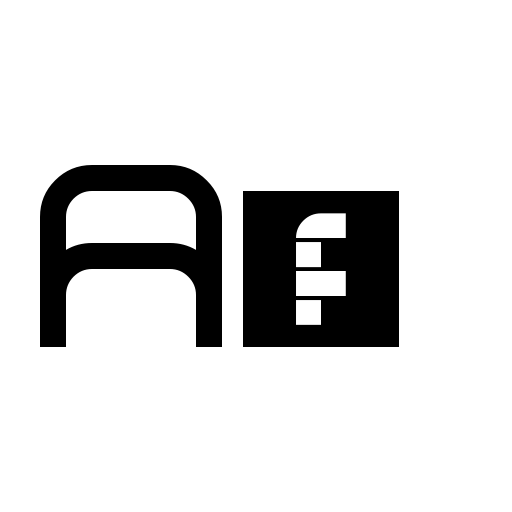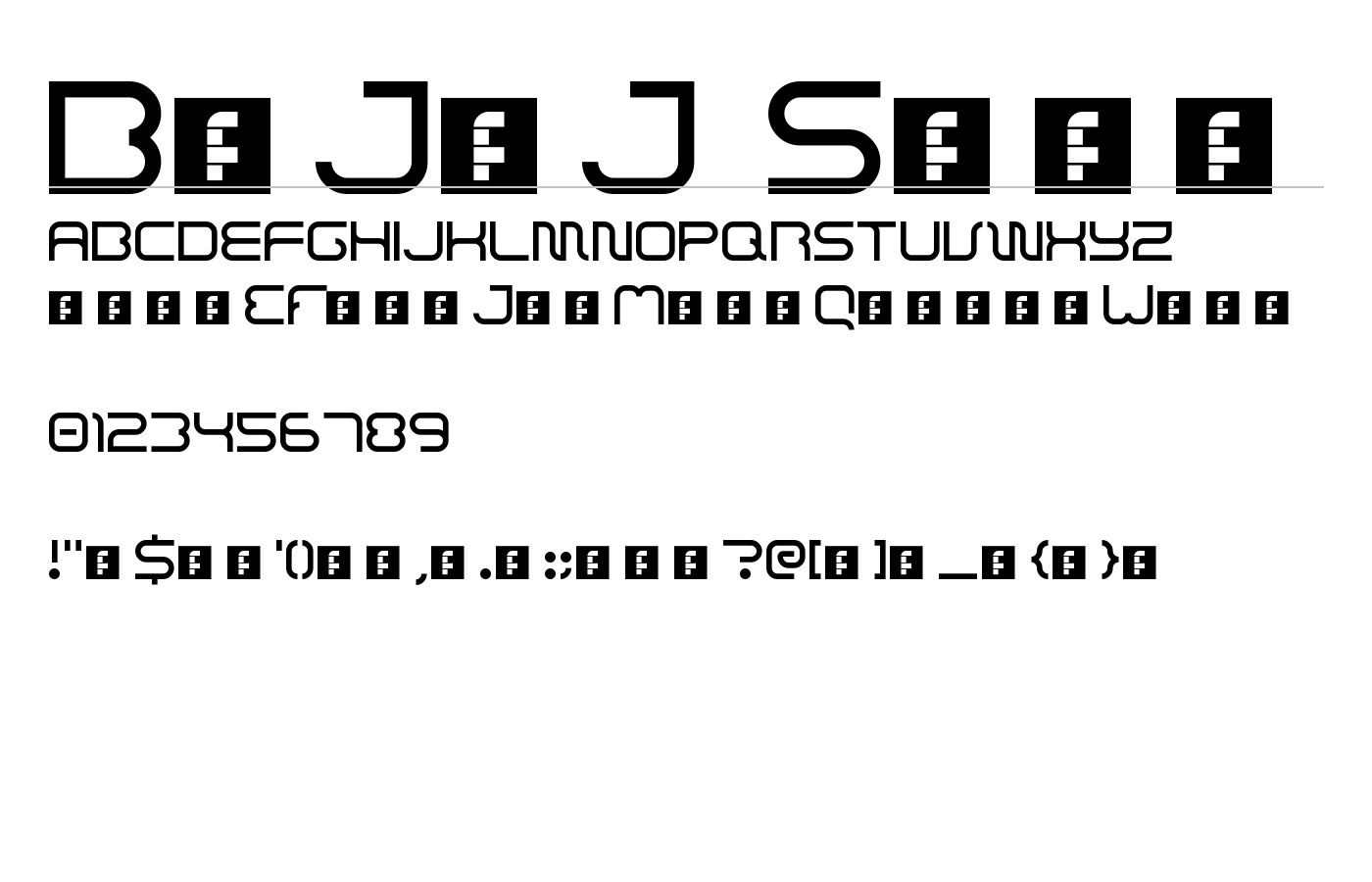
Bajaj Sans is a distinctive geometric sans serif font characterized by its clean, modern lines and unusual structural details, lending it a futuristic and tech-savvy feel. Its narrow width, consistent stroke weight, and high x-height make it highly legible while also giving it a unique personality suited for digital interfaces, branding, and headlines that aim to stand out with a contemporary edge. This font works especially well for brands and projects that want to combine clarity with innovation and a forward-thinking attitude.
Bajaj Sans Font
About Bajaj Sans Font
| Font family | Bajaj Sans Font |
| Designer | cablecomputer |